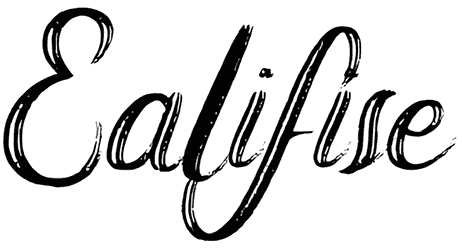
Endless Font
Picking up a ravishing and pretty handwritten font, such as this option, will provide you with a great chance to showcase your design in a realistic vision. Endless font has curvy and smooth lettering that can make your design look charming. This romantic font supports A-Z characters, and you can set it for many layouts, namely a birthday party invitation card.
Designed by: Graphix Line Studio